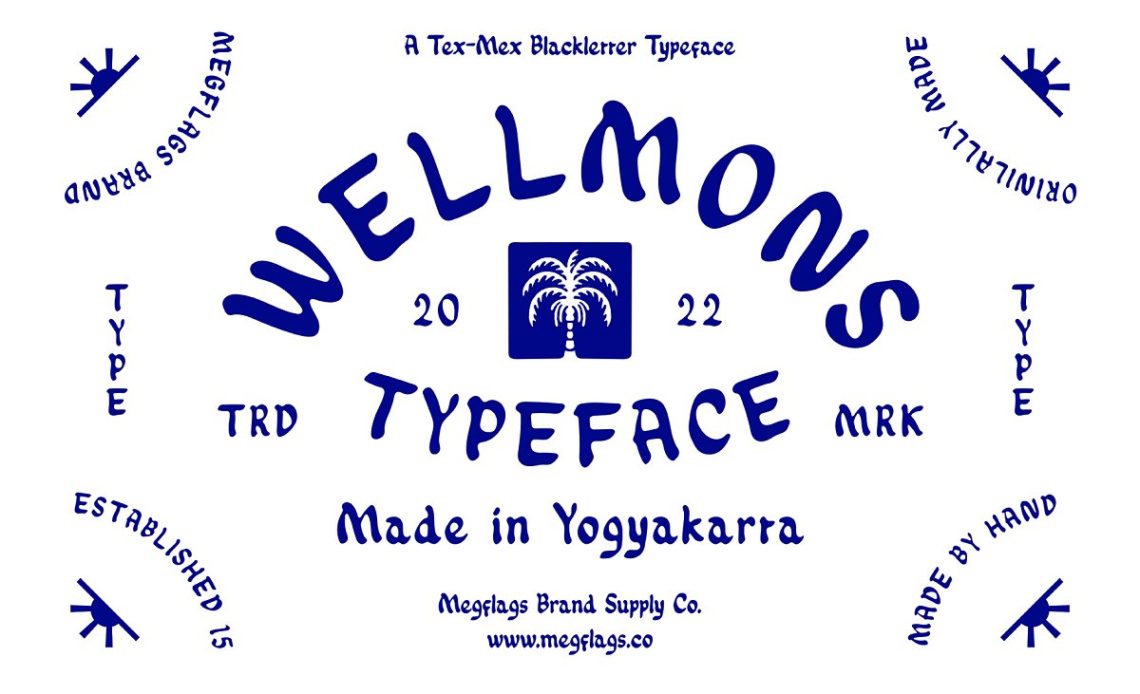
Welcome to our latest collection of blackletter fonts - featuring the remarkable Wellmons Typeface by Fahrenno Asnawan. If you are looking for the best fonts for display boards, then Wellmons Typeface is a perfect choice. With its unique and cool aesthetic, this typeface is an ideal fit for any branding project looking to evoke a sense of nostalgia or a connection to the American Southwest.
Inspired by vintage signage found in Texas and Mexico, Wellmons Typeface is a beautiful blend of bold and stylized letterforms with a touch of western or Mexican theme. Its design features a set of variations of the letterforms that give it a vintage look, making it stand out from other blackletter fonts.
One of the key benefits of Wellmons Typeface is its multilingual support, which includes characters for multiple languages in addition to English. This feature makes it easy to use for various projects that require internationalization. With Wellmons, you can easily switch between languages without losing its unique design aesthetic.
Wellmons Typeface is perfect for creating eye-catching designs that stand out from the crowd. Whether you're designing logos, posters, or signage, this font is sure to leave a lasting impression on your audience. It's also ideal for editorial design projects, such as magazine layouts or book covers.
In conclusion, if you're looking for a font that is both stylish and functional, Wellmons Typeface is an excellent choice. Its unique aesthetic and multilingual support make it a versatile font for any design project. Download Wellmons Typeface now and add a touch of the American Southwest to your next project.